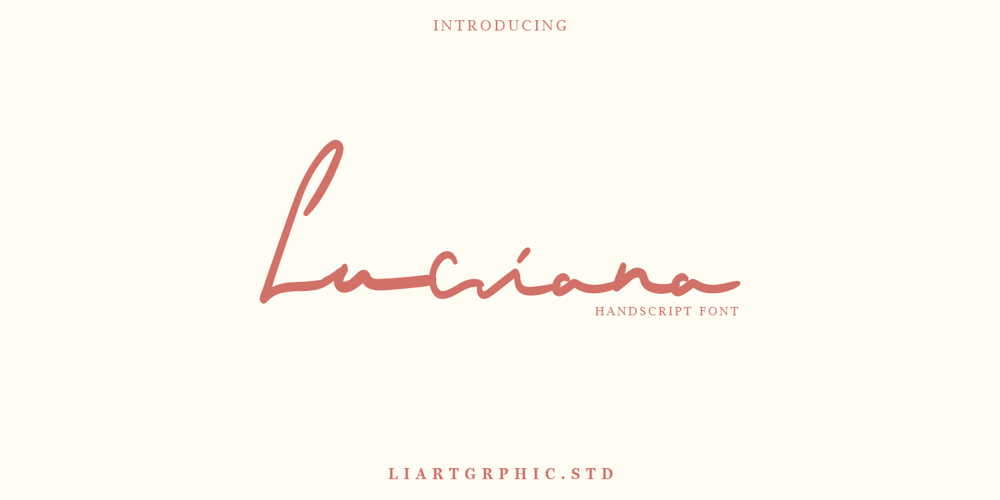
Luciana Font Family was designed by Ali Sifak Muftari and published by Liartgraphic. Luciana contains 1 styles and family package options. Our newest script font, Luciana, is funny but straightforward, both used as a letter logo, branding, packaging design, landing pages, tag lines and more. Our fonts also include multilingual support as well as alternates and ligatures.